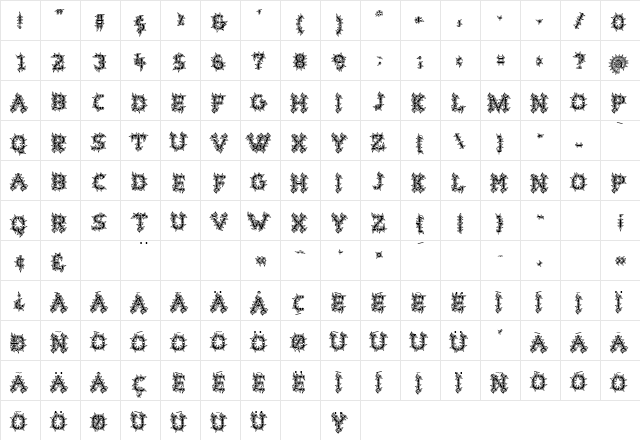
WurstHassen Regular
Design Context for WurstHassen Typeface
WurstHassen is a composed and adaptable typeface that performs quietly and consistently across a wide range of design contexts.